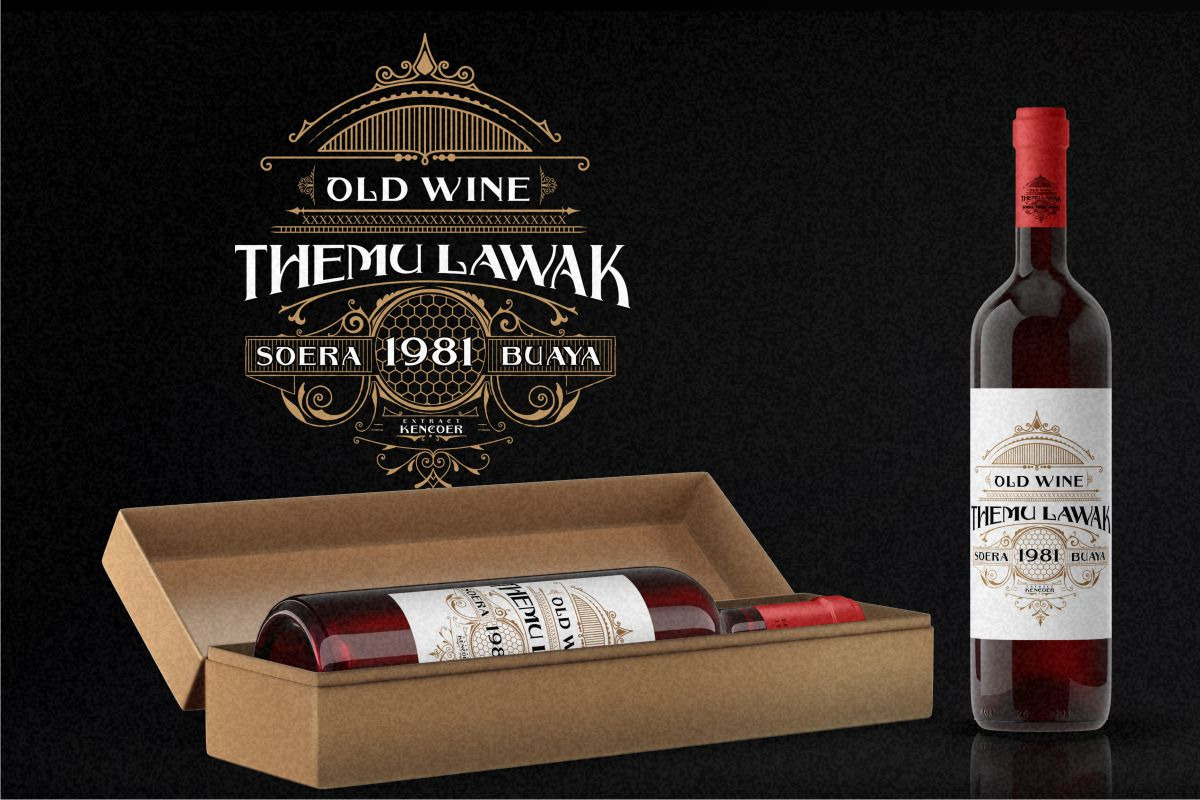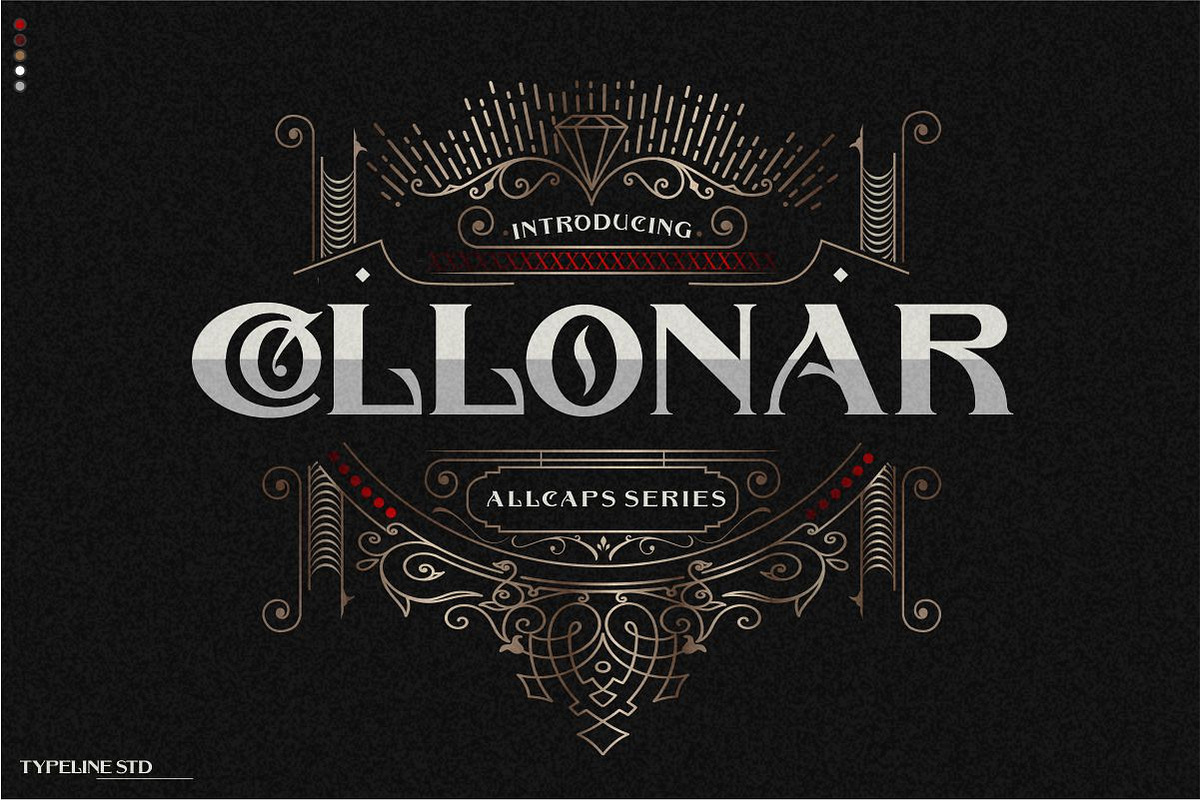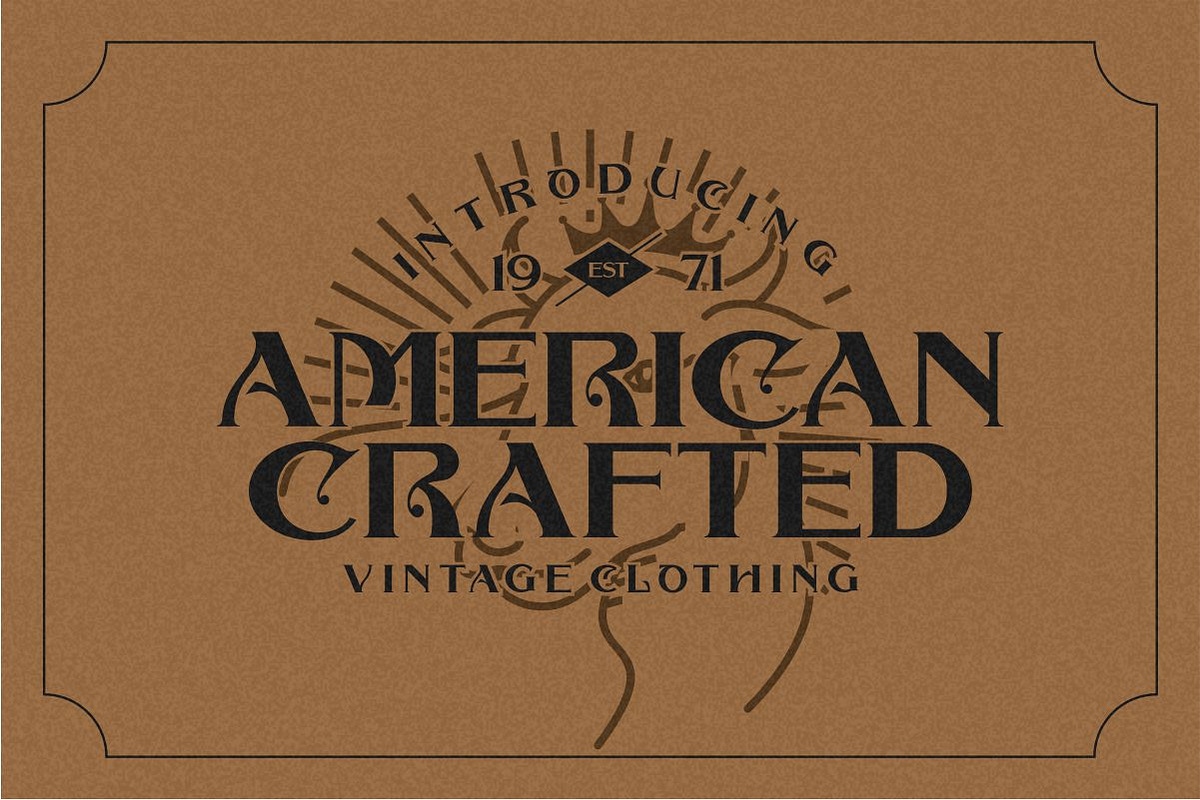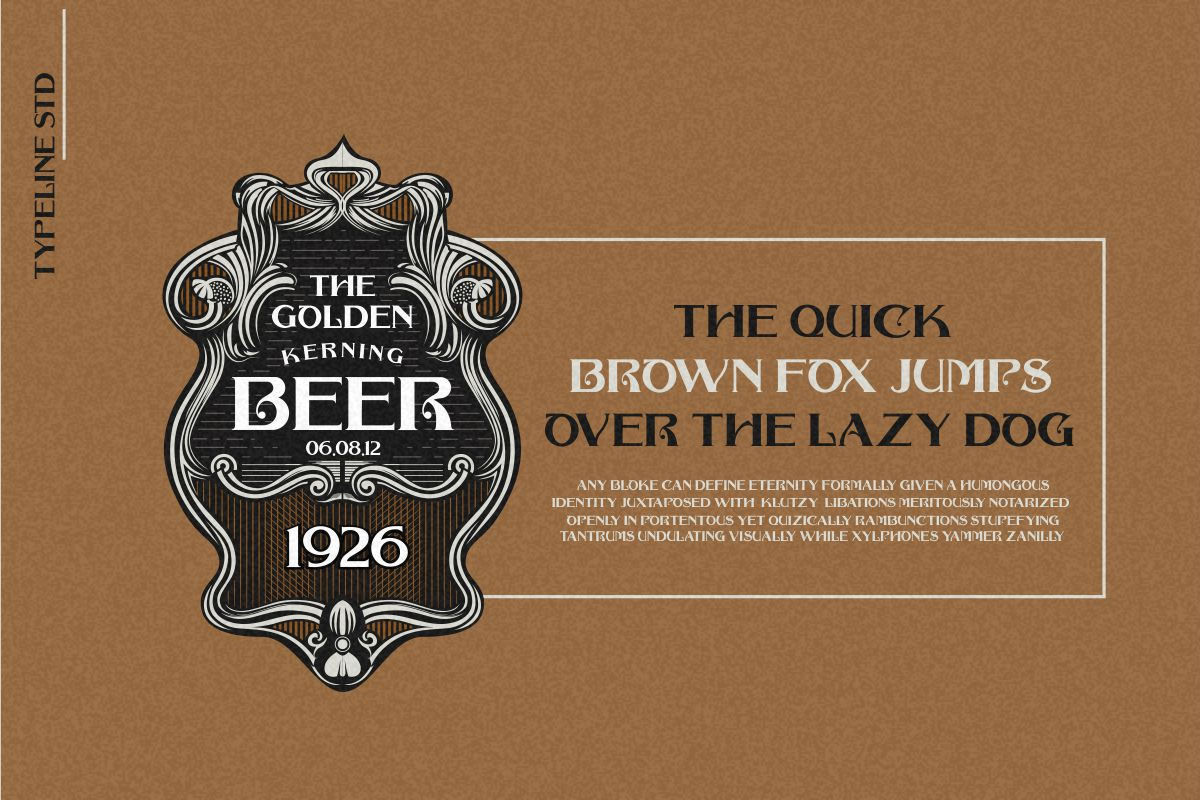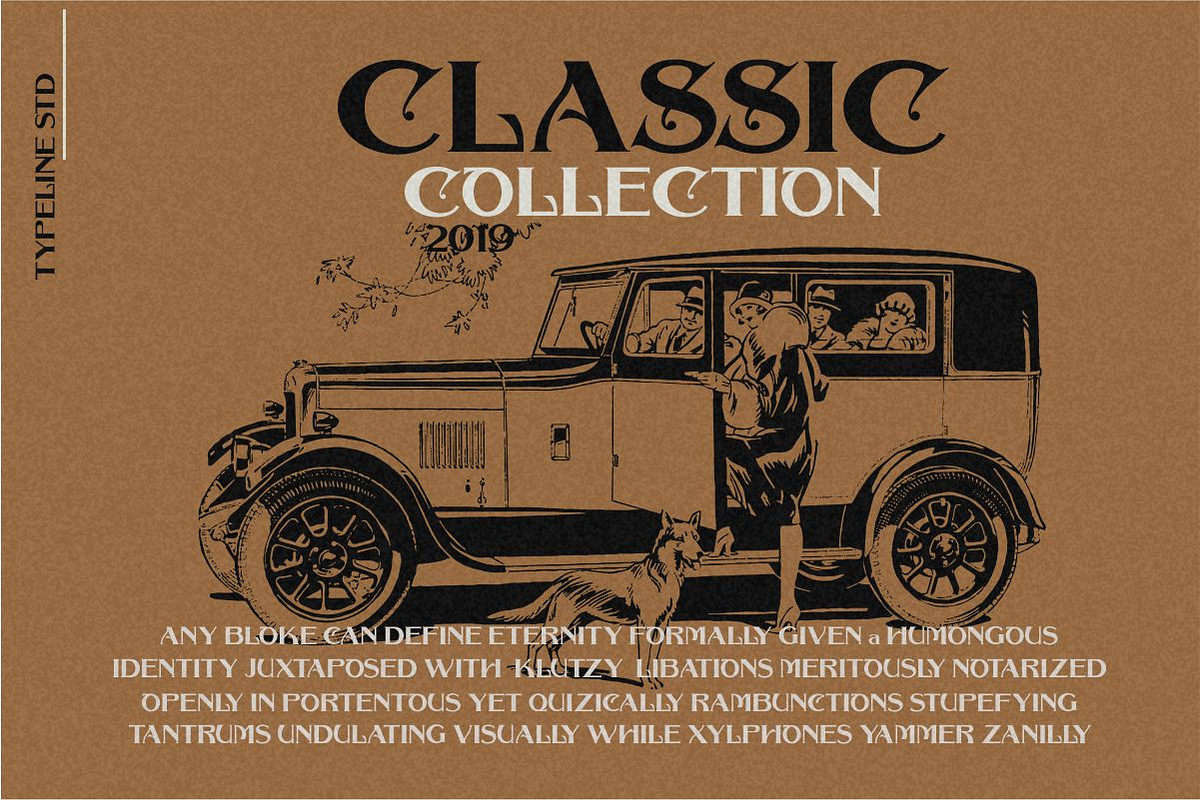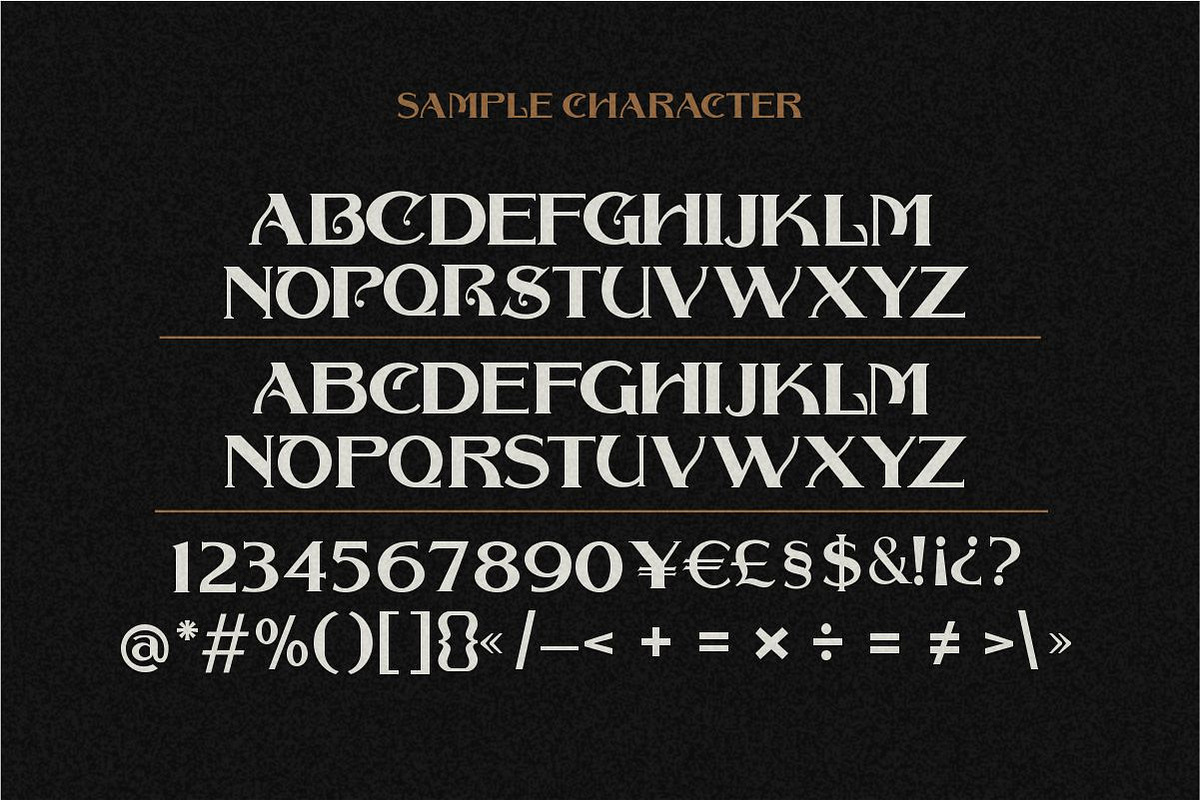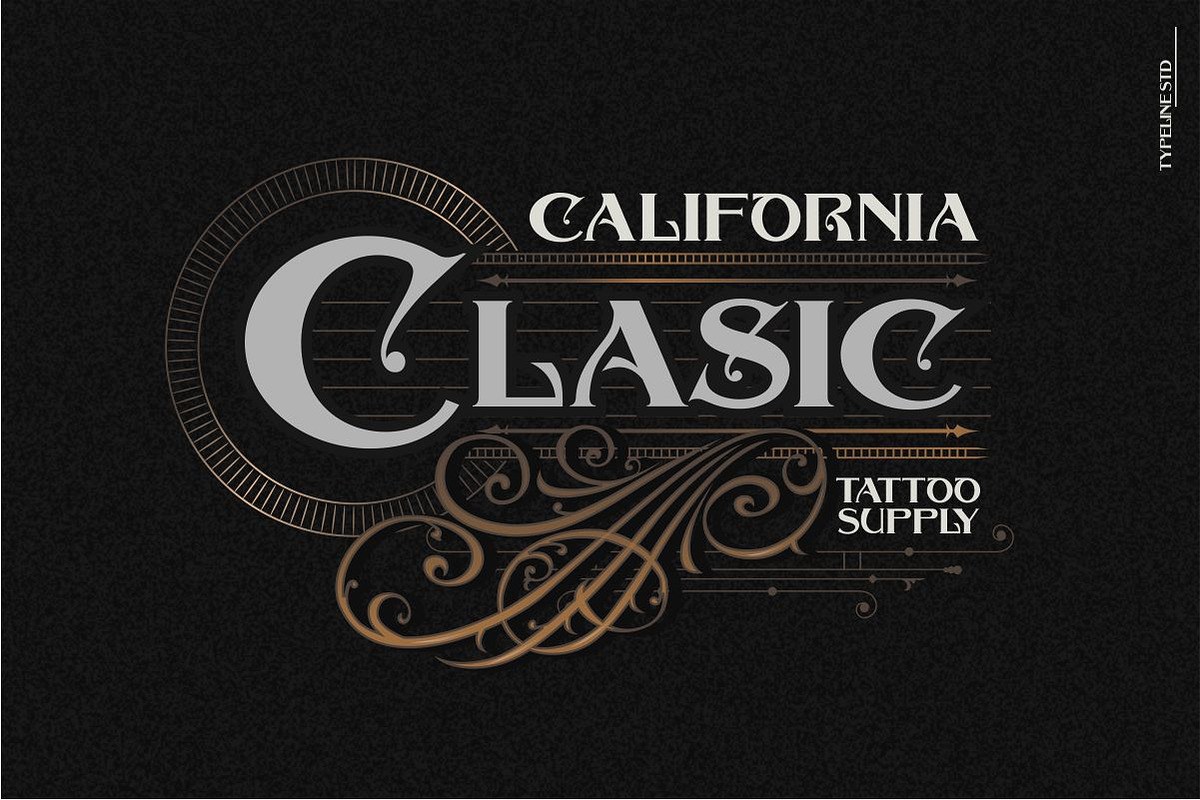
COLLONAR / TYPEFACE + BONUS
COLLONAR CAPS a vintage serif typeface Regular caps and Italic Caps
This font has a classic and vintage but modern looking this style perfect for Logos,branding,deisgn ui/ux,design tshirt,typhography various,writing title , content, or the titles of magazines and books, with modern anatomical styles as they are very visible in CAPITAL OR UPPERCASE SERIES, I make two flexible functions between uppercase letters that can be used to make logos, branding, tshirt, posters, and whatever classic projects you make.
examples might be seen in the preview or by trying to type the name or text you want.